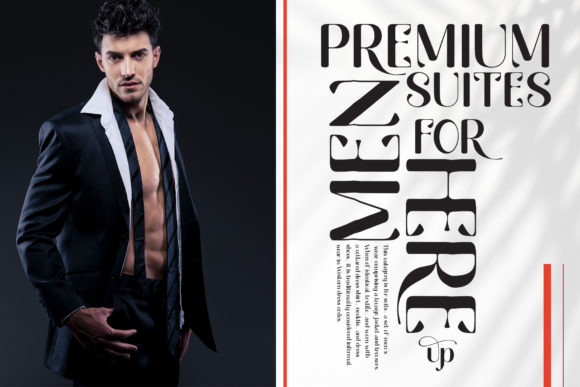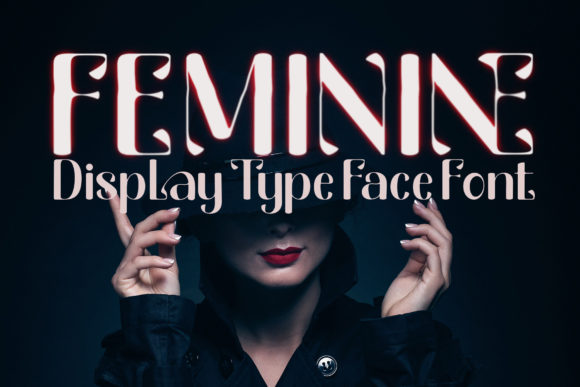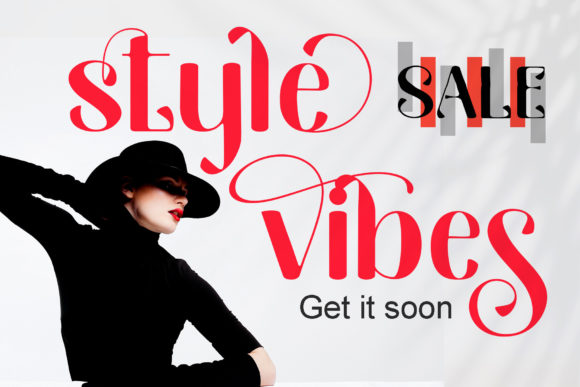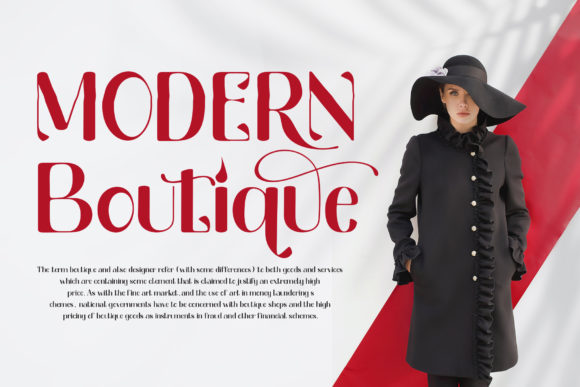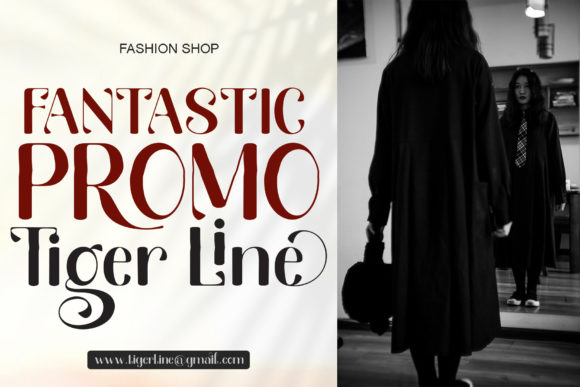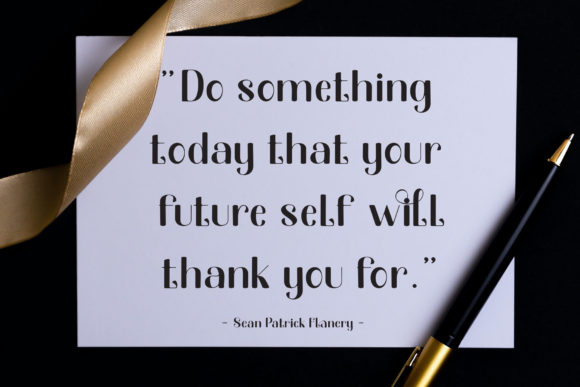
Introduction to Metalline Font
Do you remember the excitement of designing your first logo, or creating a custom wedding invitation for a loved one? For many of us, the creative process is a thrill that never gets old. And when the right design elements come together, magic happens. Today, we’re shining the spotlight on the Metalline Font, a cool and distinct display font that’s about to elevate your creative projects to new heights.
Whether you’re a seasoned designer or just starting out, the Metalline Font is a valuable resource that’s sure to inspire your next project. Its sleek, modern aesthetic makes it perfect for a wide range of applications, from logos and wedding invitations to headings and signage. And the best part? It’s available for free download, making it an accessible design resource for creatives of all levels.
Key Features of Metalline Font
- High-quality design: The Metalline Font is a premium design resource that offers a unique and creative aesthetic for various projects.
- High resolution: The font is designed at a high resolution of 300 DPI, making it suitable for use in various creative projects, from print to digital media.
- Unique characteristics: The Metalline Font features a distinctive, modern design with clean lines and a metallic sheen, making it perfect for projects that require a touch of sophistication.
I recently came across the Metalline Font, and I must say it’s been a game-changer for my creative project. The free download option was a huge plus, and the design resource itself is top-notch. The transparent background makes it easy to integrate with any design.
- ✨ High-quality design that’s perfect for modern projects
- ✨ Wide range of styles and weights to choose from
- ✨ Easy to use and customize
Overall, I’m really impressed with the Metalline Font. It’s a great design resource that’s easy to use and integrates well with any project. The only limitations are minor and don’t detract from the overall experience. If you’re looking for a high-quality font for your creative project, I highly recommend giving the Metalline Font a try.
The Metalline Font is a high-quality design resource that can elevate your creative project to the next level. With its sleek and modern look, it’s perfect for a variety of applications, from digital design to print media.
The Metalline Font is versatile and can be used in a variety of contexts, including:
- Headings and titles
- Body text
- Logos and branding
- Infographics and data visualizations
- Use it in conjunction with a transparent background to create a modern and sleek look.
- Pair Metalline Font with other design elements, such as images and graphics, to create a cohesive design.